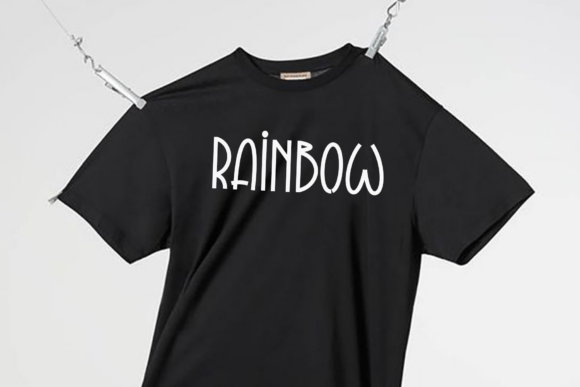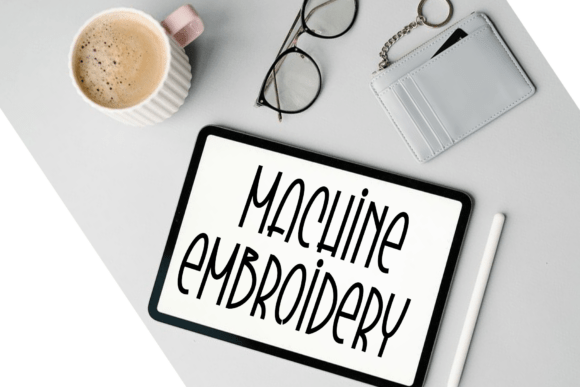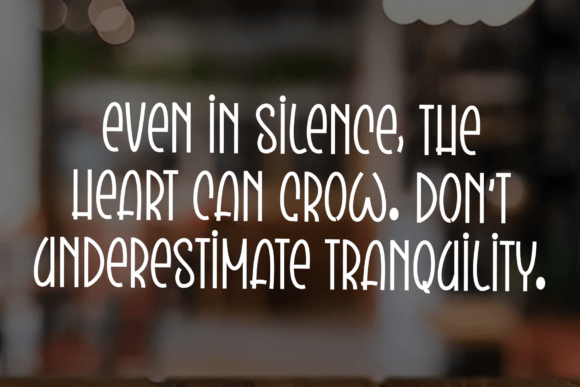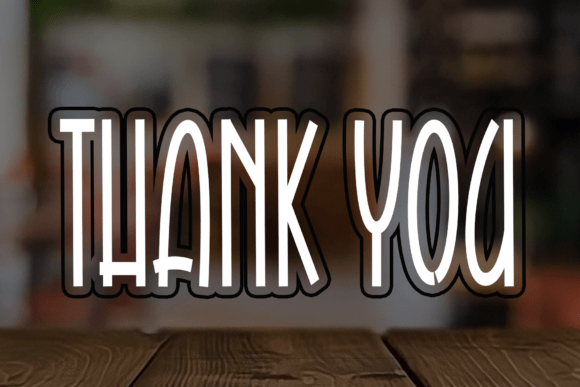
Unleashing the Power of Handwritten Elegance
Have you ever been struck by a burst of creative inspiration while wandering through a forest or sitting by a serene lake? It’s as if the world around us sparks an inner sense of clarity and focus, guiding us to bring our ideas to life. For designers, this feeling is what drives us to create something truly special.
Introducing the Creative Wednesday Font, a modern handwritten collection that embodies the essence of clarity and crisp elegance. With its tall, thin strokes and subtle, airy slant, this font offers a refined aesthetic that feels as fresh as a mountain breeze. Whether you’re working on a travel photography project or designing a brand for outdoor gear, the Creative Wednesday Font is an ideal choice.
As a valuable addition to any designer’s toolkit, the Creative Wednesday Font is sure to bring a touch of sophistication and approachability to your next project.
Creative Wednesday Font Key Features
- Unique Characteristics: Features a hand-drawn, whimsical design with intricate details and flourishes, making it perfect for creative projects.
Review of Creative Wednesday Font
Overall, I’m a fan of the Creative Wednesday Font. It’s a modern, playful font that’s perfect for adding some whimsy to your designs. Here’s what works well:
- ✨ The font’s quirky feel is infectious, and it’s easy to see how it could be used in creative projects like advertising, social media graphics, or even children’s books.
That being said, there are a few limitations to keep in mind:
- ⚠️ The font’s aesthetic may not be to everyone’s taste. Some designers might find it too playful or cutesy for their needs.
- ⚠️ The font’s character set may not be as extensive as some other fonts, which could limit its use in certain contexts.
Overall, I think the Creative Wednesday Font is a great option for designers looking for a fun, modern font to add some personality to their projects.
Introduction to Creative Wednesday Font
The Creative Wednesday Font is a versatile and modern script font ideal for creative projects. In this guide, we will walk you through how to use it in various design platforms and provide tips for getting the most out of it.
Some tips to get the most out of the Creative Wednesday Font include:
- Use it for creative projects such as invitations, posters, and social media graphics.
- Combine it with bold fonts for a striking contrast.
- Experiment with different font sizes and colors to add visual interest.
Common use cases for the Creative Wednesday Font include:
- Event and party invitations
Alternatives to Creative Wednesday Font
Great Vibes is a beautiful, elegant script font perfect for adding a touch of sophistication to your designs. It’s ideal for use in headings, titles, and other high-impact areas where you want to make a statement.
Compared to Creative Wednesday Font, Great Vibes has a more refined and polished look, making it suitable for a wider range of design applications. While Creative Wednesday Font is great for casual, creative projects, Great Vibes is better suited for more formal or professional designs.
Pacifico is a modern script font that exudes a sense of relaxation and calmness. It’s perfect for use in headings, titles, and other areas where you want to convey a sense of serenity.
Pacifico has a similar casual, creative feel to Creative Wednesday Font, but with a more laid-back and beachy vibe. While Creative Wednesday Font is great for a wide range of design applications, Pacifico is better suited for projects that require a more relaxed and calming atmosphere.